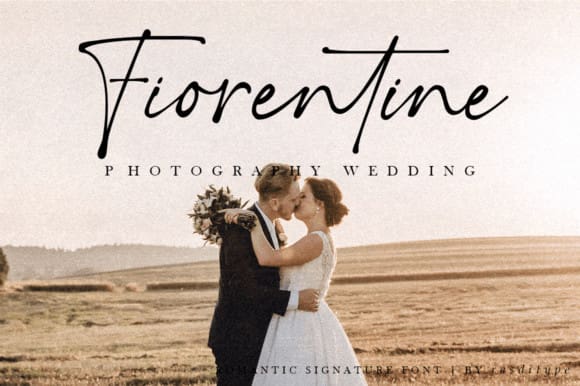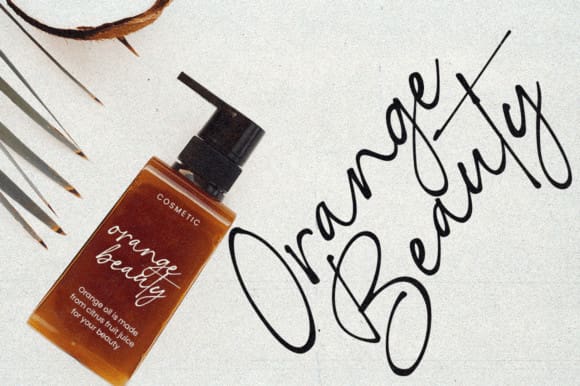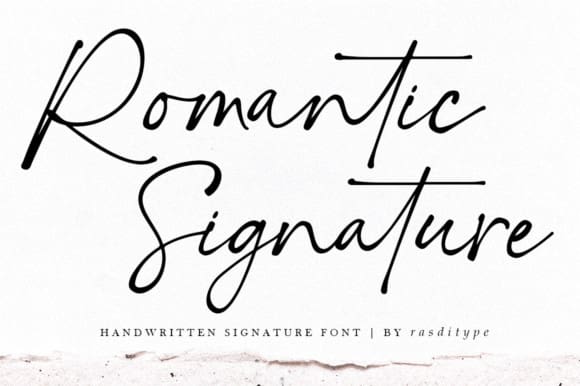
Romantic Signature Typeface
Romantic Signature Typeface, is a lovely script font with exquisite letters and perfect calligraphy. This font is great to use on projects that need cursive handwriting and an authentic feel. This font is PUA encoded, which means you can access all of the glyphs and swashes with ease!